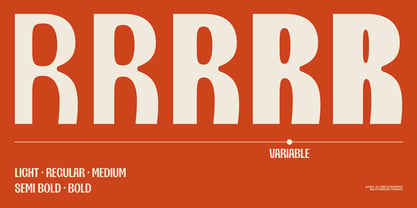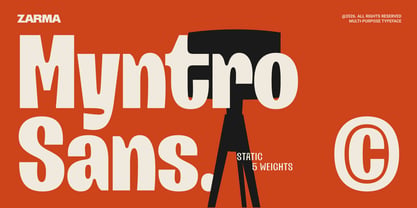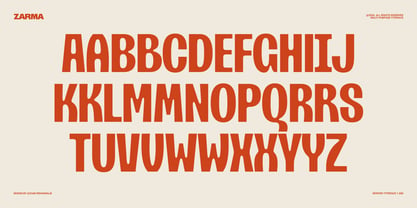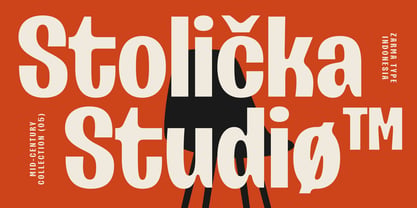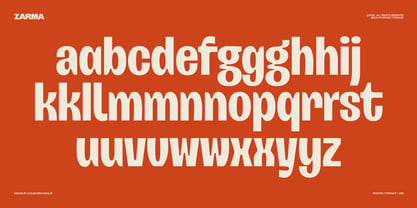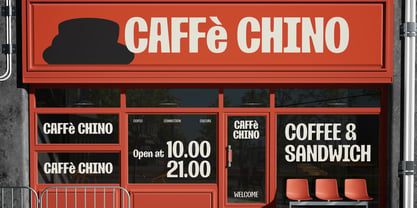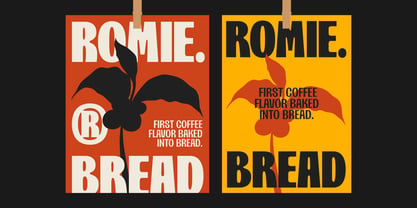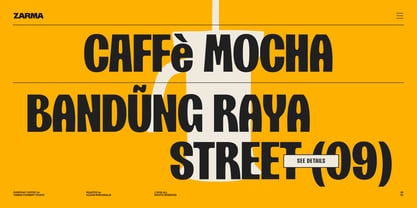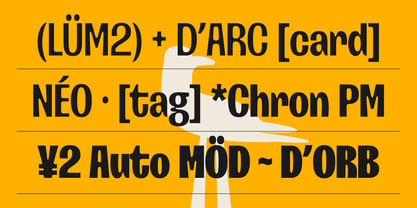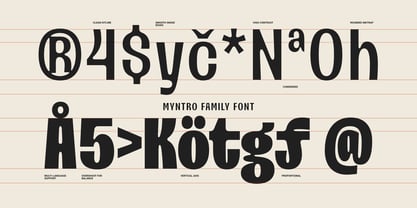
Myntro
Meet Myntro Sans — the multi-purpose display typeface built for designers who mean business.
Myntro Sans is a bold, condensed sans serif with a strong retro-industrial character. Designed to command attention at large sizes, it's the kind of typeface that makes headlines feel like they were always meant to be there — on posters, brand identities, packaging, editorial layouts, signage, and more.
What makes Myntro Sans work so well? Whether you're building a bold brand identity or designing a statement poster, Myntro Sans gives you the visual weight and flexibility to pull it off. Five carefully crafted weights — from Light to Bold — let you create contrast and hierarchy within a single typeface family.
Packed with thoughtful details: alternates and ligatures give you extra options to fine-tune your typography. Multilingual support means your designs aren't limited by language. And with 20 static font files, Myntro Sans is ready for print, screen, and web — right out of the box.